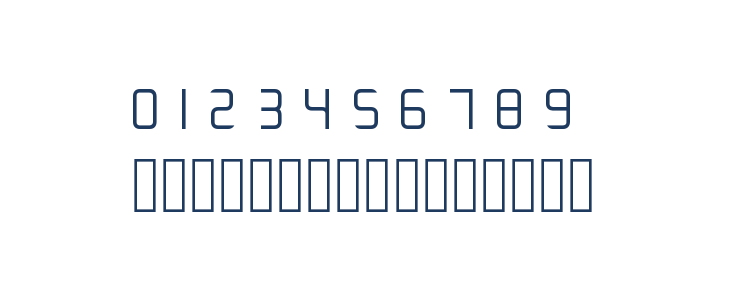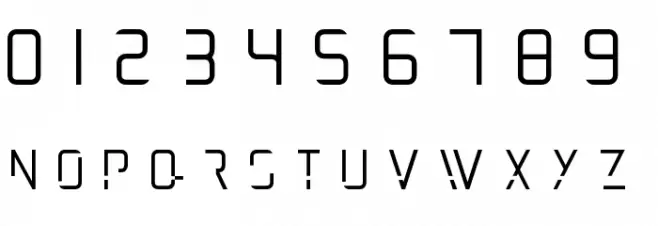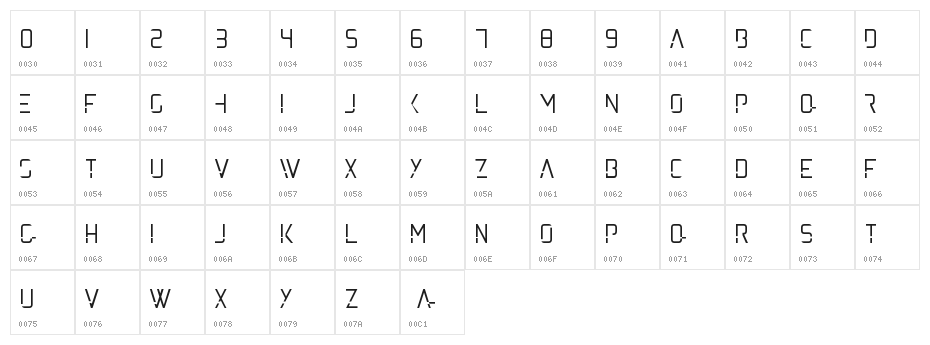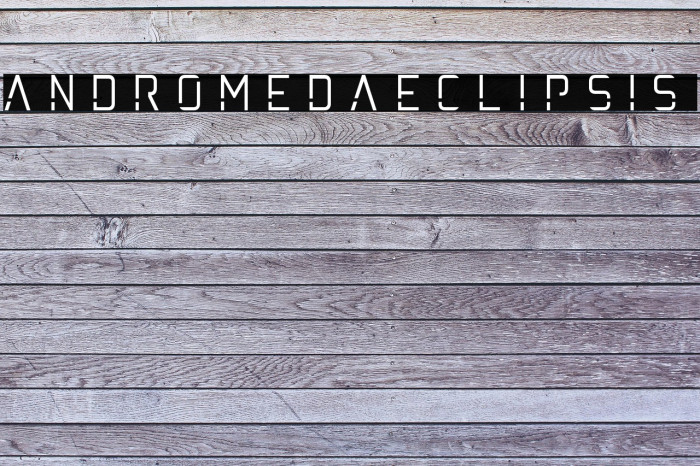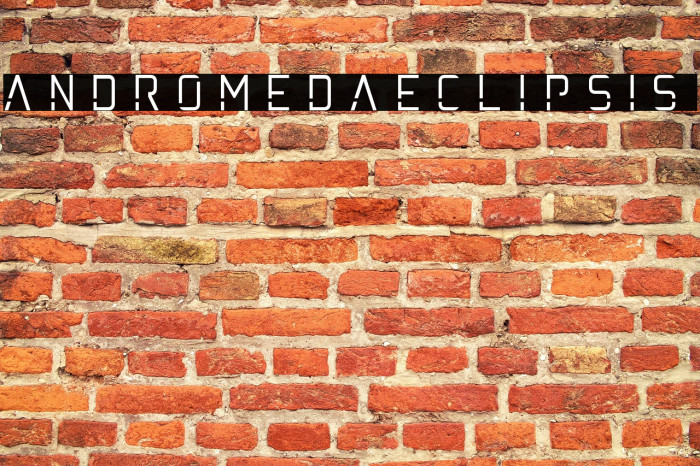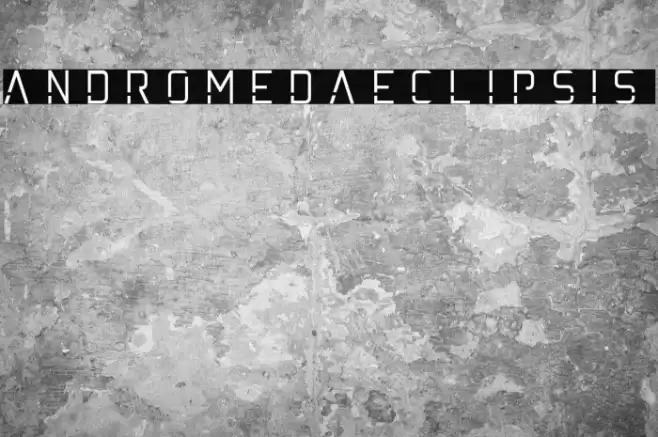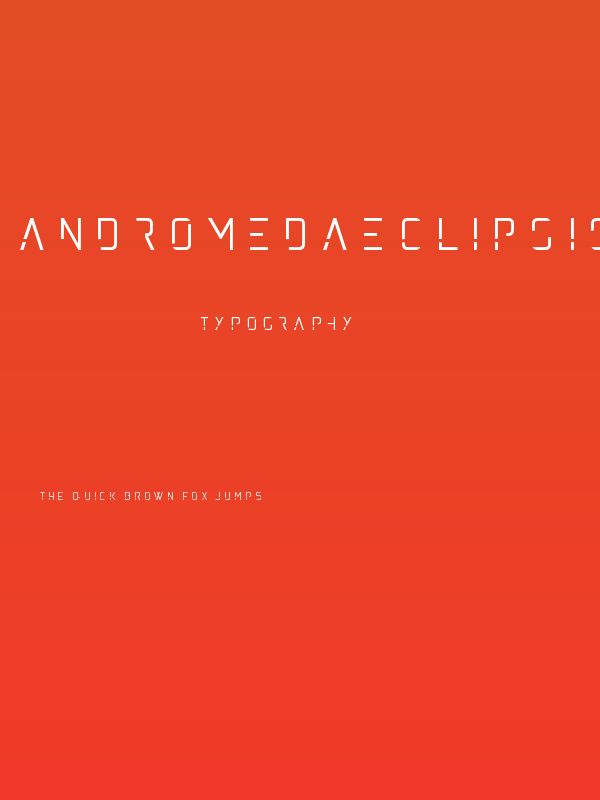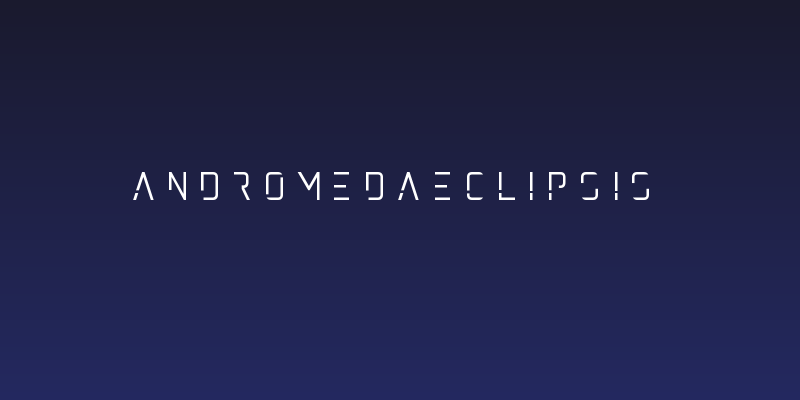
Andromedaeclipsis Font
Andromedaeclipsis Description
This font features a futuristic and geometric design, characterized by its sharp angles and clean lines. The uppercase and lowercase letters maintain a consistent style, with a distinct emphasis on angular cuts and minimalistic forms. The numerals are equally stylized, complementing the overall aesthetic with their uniform structure. The special characters are designed to match the angular and modern feel, making the font suitable for contemporary and tech-oriented designs. Its unique appearance makes it stand out, offering a bold statement in any project.
| Use Case | Logos, Headlines, Digital interfaces |
| Proposed Projects | Ideal for technology branding, sci-fi themed projects, modern logos, and digital interfaces. |